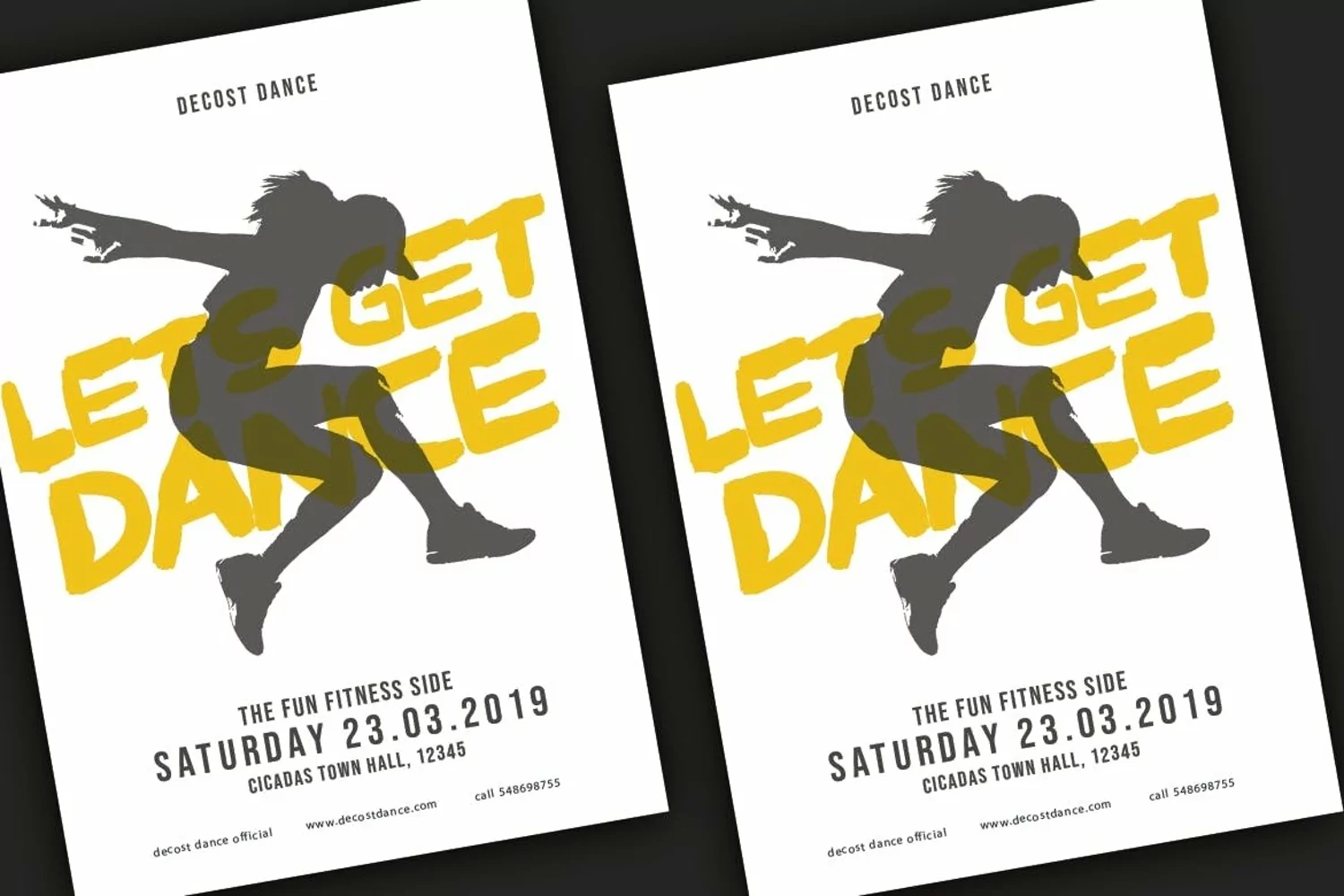
Vandalism graffiti font is rough, splatter, and free spirit. Vandalism will make everything you wrote, blessed with unlimited energy and always stay on the edge of their adrenaline.
Suit perfectly for Urban and Extreme Online Games, poster, movie title, fast food menu, magazine, youtube covers, youtube thumbnails, social media page covers and so on…